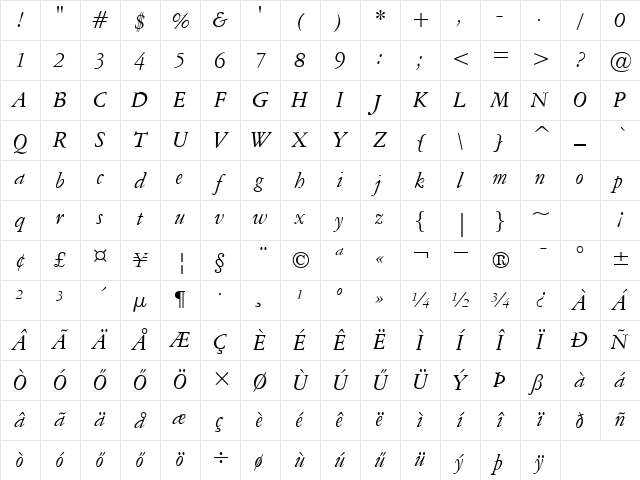
Complete H_American Garamond BT Italic glyph index. Displaying only characters natively supported by H_American Garamond BT Italic font.
H_American Garamond BT is a composed and adaptable typeface that performs quietly and consistently across a wide range of design contexts. The slanted form adds forward momentum and visual energy.